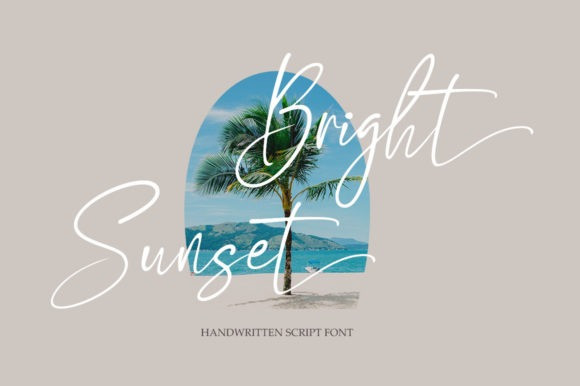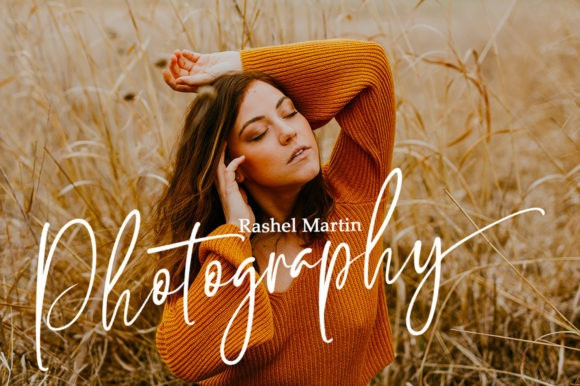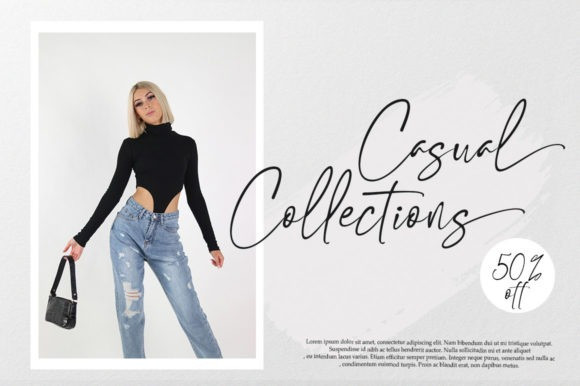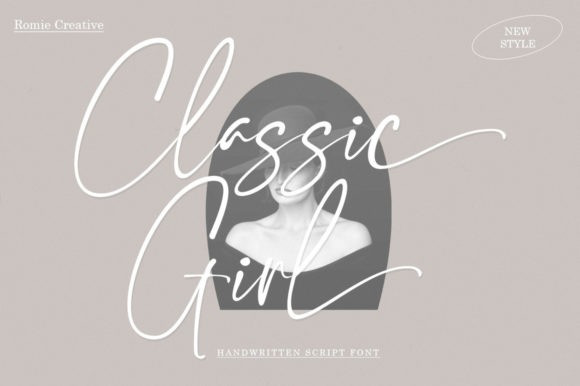
Classic Girl Font
Classic Girl Script Font is a feminine handwritten typeface created by Romie Creative with elegant and minimalist look. This hand-styled look makes it perfect to use in all your design projects logos, labels, packaging designs, blog titles, posters, wedding designs, social media posts, social media designs, etc.